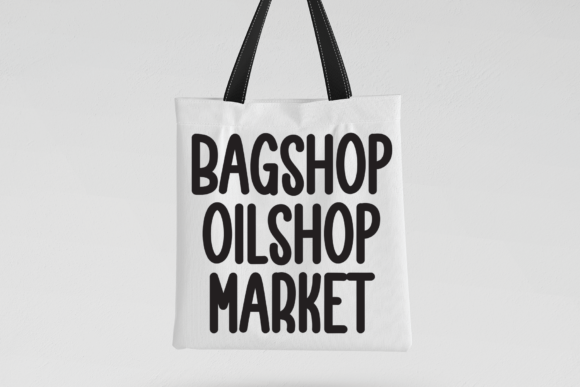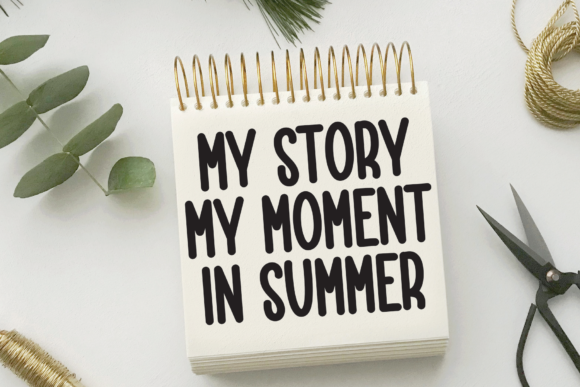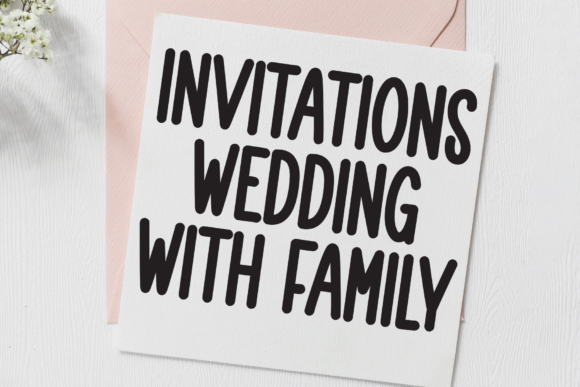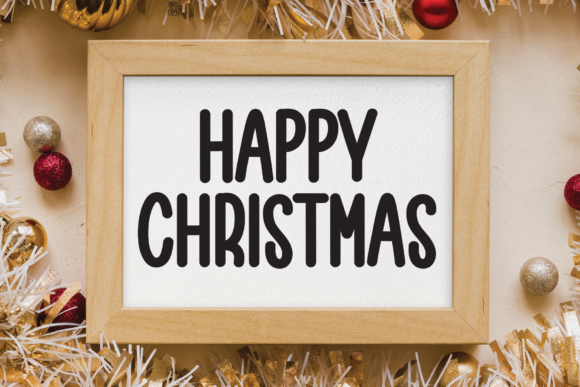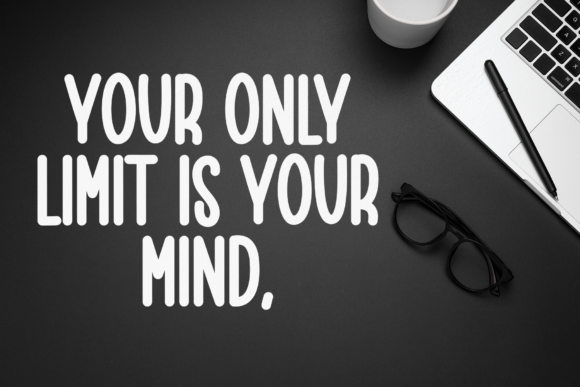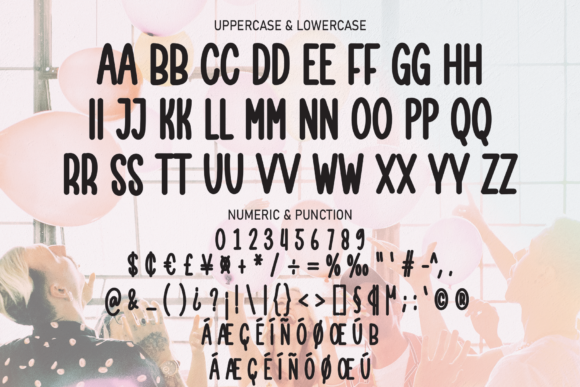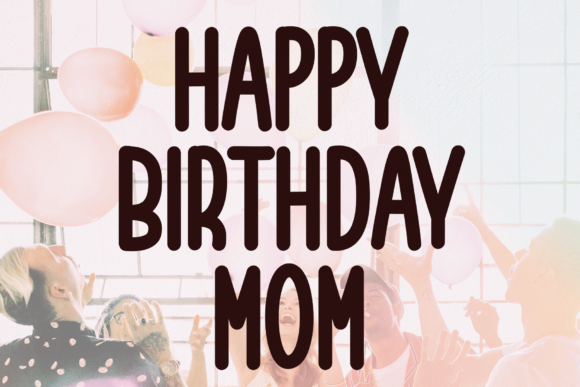
Happy Birthday Mom Font: The Perfect Choice for Modern Designs
Are you looking for a font that can add a touch of modern elegance to your designs? Look no further than the Happy Birthday Mom Font. This simple and charming sans serif font is perfect for a wide range of projects, from wall displays and wedding invitations to social media post logos and product packaging.
What Makes Happy Birthday Mom Font So Special?
The Happy Birthday Mom Font is a unique and stylish font that features the latest style letters. Its clean and simple design makes it perfect for designers and crafters who want to add a modern touch to their projects. The font is highly versatile and can be used for a variety of applications, including:
- Wall displays and signage
- Social media post logos and graphics
- Advertisements and marketing materials
- Product packaging and design
- Labels and stickers
- Photography and watermarks
- Stationery and paper crafts
Key Features of Happy Birthday Mom Font
The Happy Birthday Mom Font has several key features that make it a great choice for designers and crafters. Some of its key features include:
- Simple and charming design: The font features a clean and simple sans serif design that is both elegant and modern.
- Latest style letters: The font features the latest style letters that are perfect for modern designs.
- Highly versatile: The font can be used for a wide range of projects and applications.
- Easy to read: The font is easy to read and understand, making it perfect for body text and headlines.
How to Use Happy Birthday Mom Font in Your Designs
Using the Happy Birthday Mom Font in your designs is easy. Here are a few tips to get you started:
- Pair it with other fonts: The Happy Birthday Mom Font pairs well with other sans serif fonts and can be used in combination with script fonts for added contrast.
- Use it for headlines and body text: The font is easy to read and can be used for both headlines and body text.
- Experiment with different colors: The font looks great in a variety of colors, from bold and bright to soft and pastel.
- Add it to your design arsenal: The Happy Birthday Mom Font is a versatile font that can be used for a wide range of projects, making it a great addition to your design arsenal.
Why Designers and Crafters Love Happy Birthday Mom Font
Designers and crafters love the Happy Birthday Mom Font for its modern and elegant design. Here are a few reasons why:
- Perfect for modern designs: The font is perfect for designers who want to create modern and stylish designs.
- High-quality design: The font features a high-quality design that is both elegant and modern.
The Happy Birthday Mom Font is a simple and charming sans serif font that is perfect for modern designs. Its clean and elegant design makes it perfect for a wide range of projects, from wall displays and wedding invitations to social media post logos and product packaging. With its highly versatile design and easy-to-use features, the Happy Birthday Mom Font is a great choice for designers and crafters who want to add a modern touch to their projects.